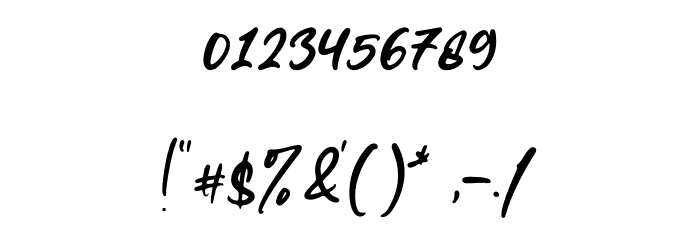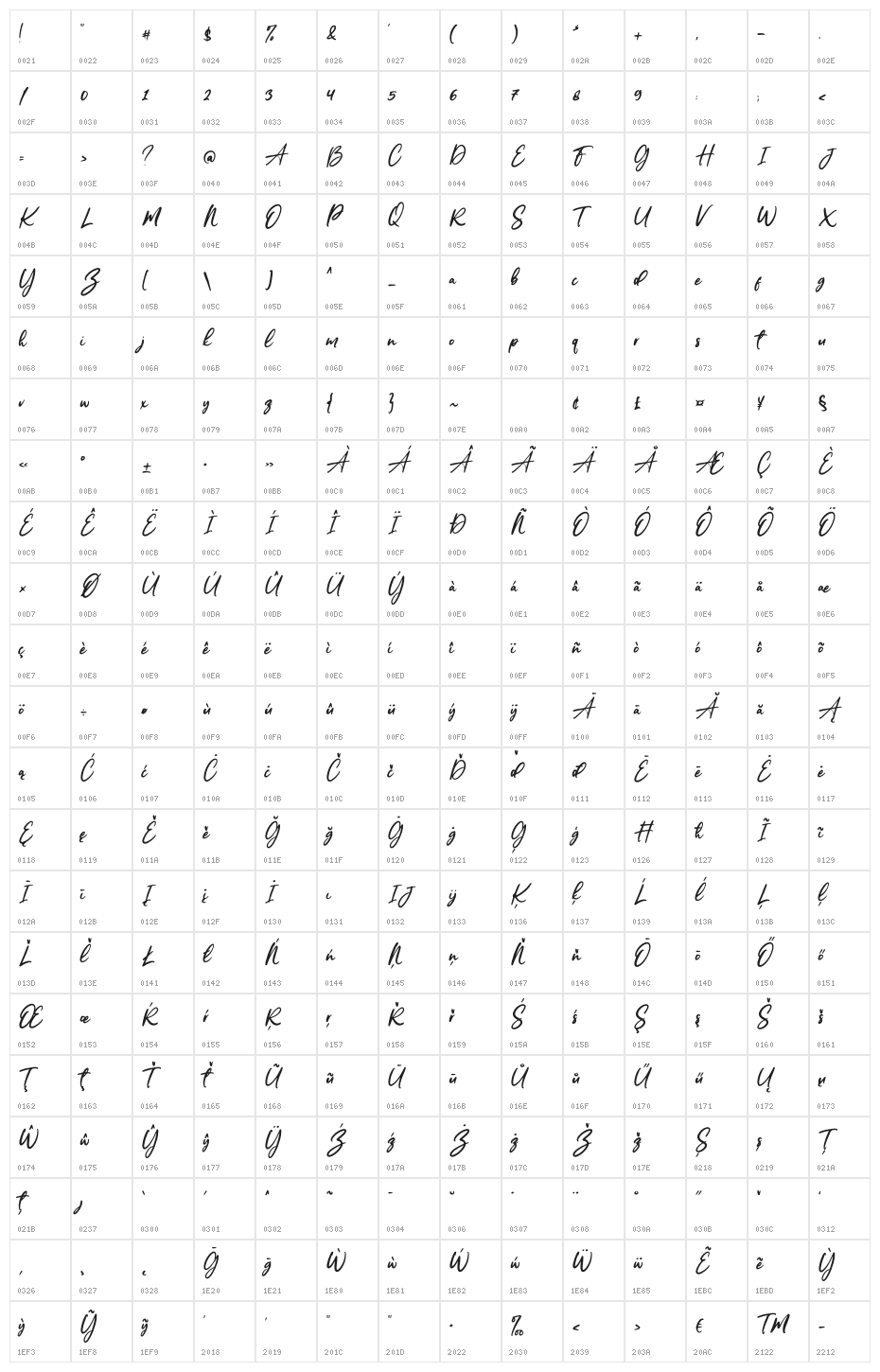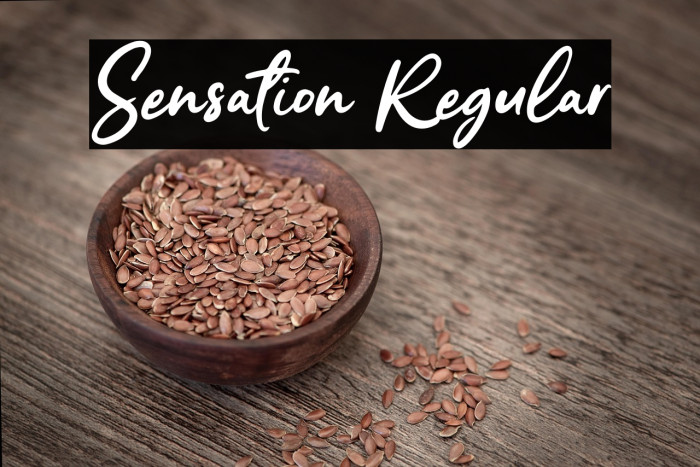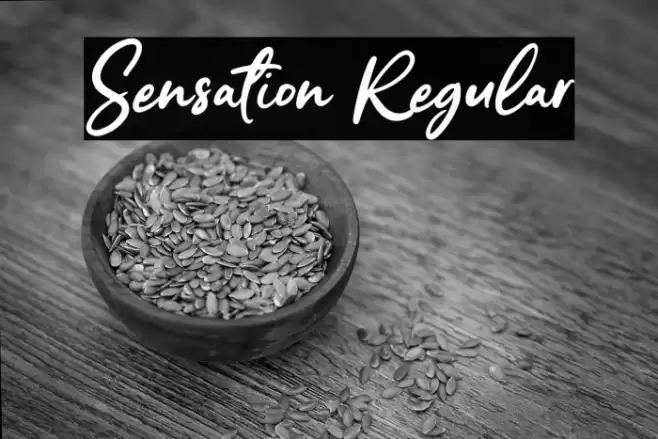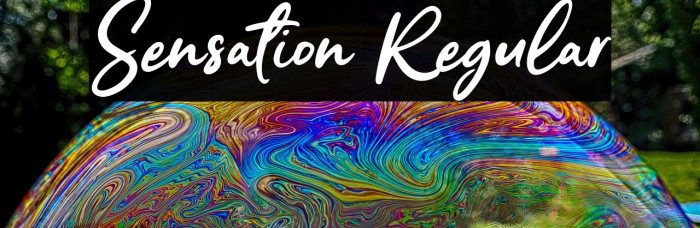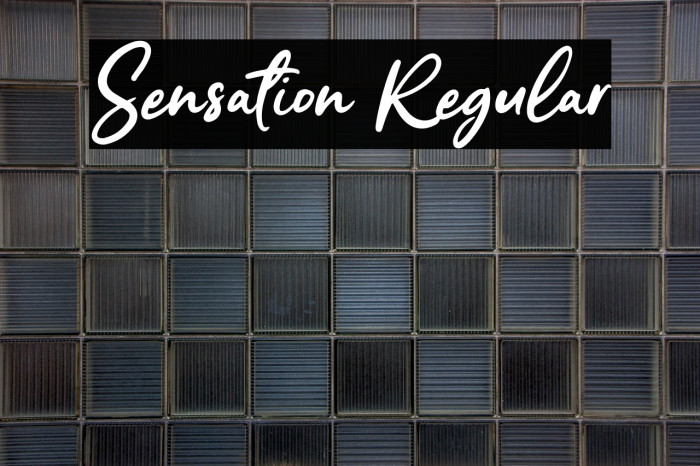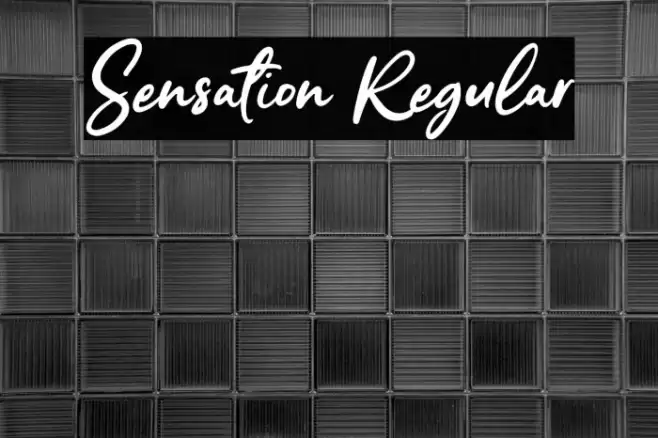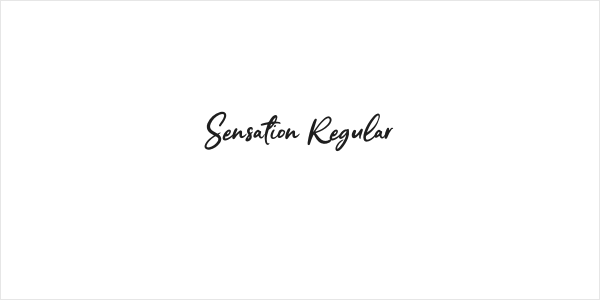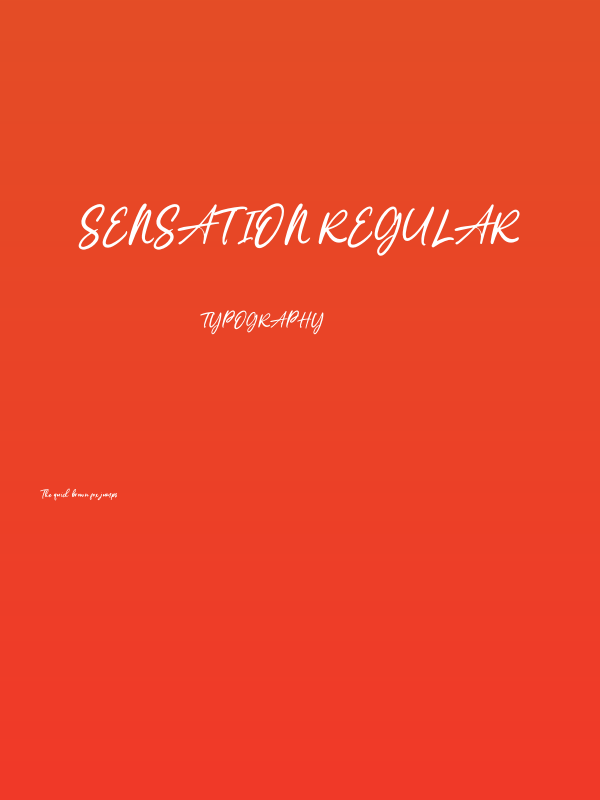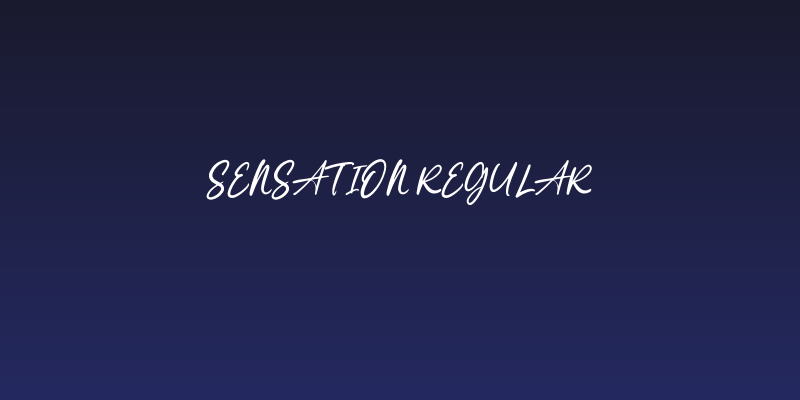
Sensation Regular Font
Sensation Regular Description
This font exudes a lively and dynamic energy with its fluid, handwritten style. The characters are crafted with a natural flow, giving an impression of personal touch and creativity. The strokes vary in thickness, adding a sense of movement and spontaneity. The uppercase letters are bold and prominent, while the lowercase letters maintain a consistent rhythm, enhancing readability. The numbers and special characters are designed to complement the overall aesthetic, making them suitable for a variety of applications. This font is perfect for projects that require a personal, artistic flair.
| Proposed Projects | Ideal for greeting cards, invitations, branding, and social media graphics. |